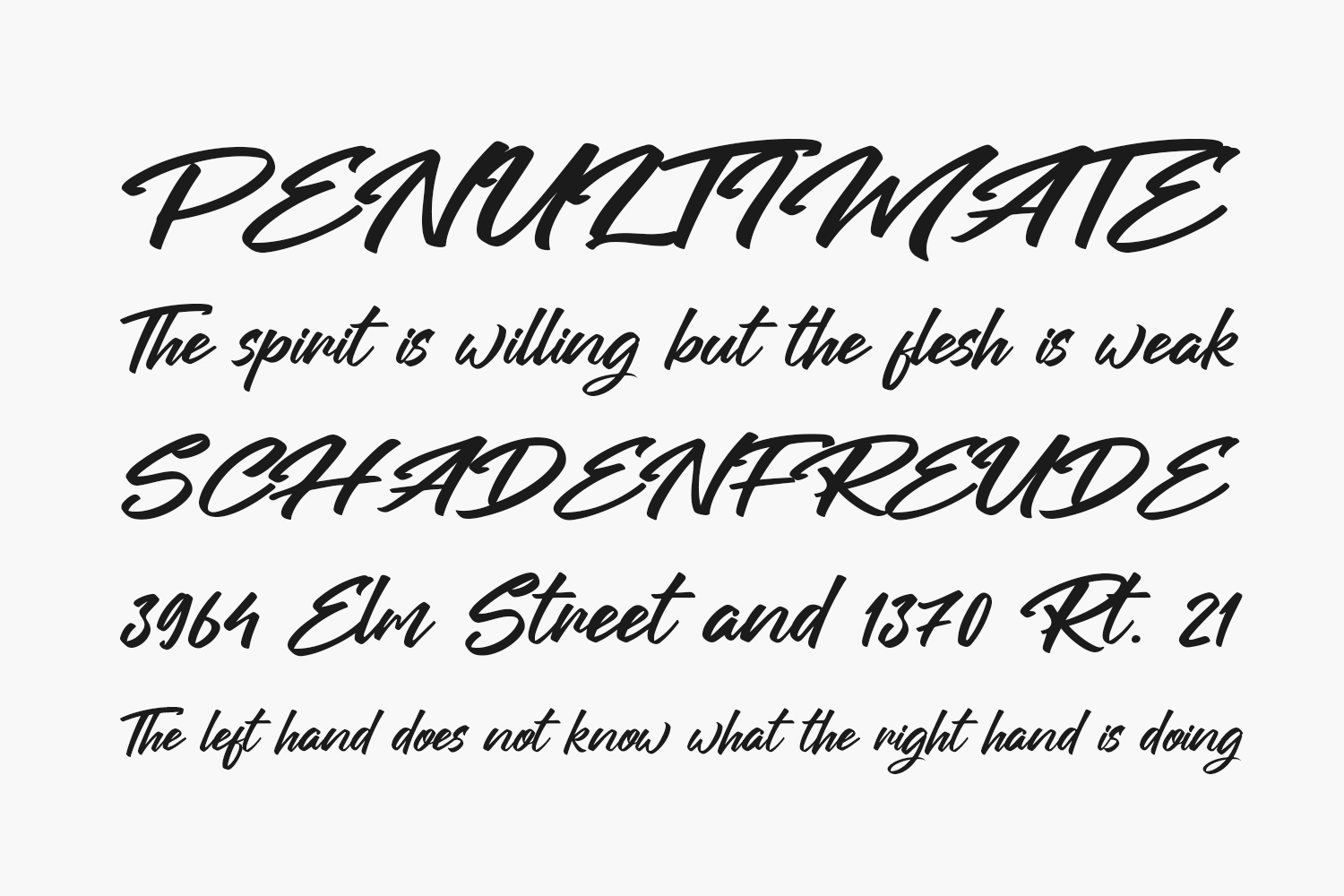
Unleash your creativity with Ruang Free Font, a contemporary cursive script font that’s designed to elevate your design projects to new heights. This versatile font is a perfect fit for a wide range of applications, including posters, logos, magazines, book covers, banners, and more! Its seamless integration into your designs will add a touch of elegance and charm.
With Ruang Free Font, the possibilities are limitless. Its adaptability allows it to effortlessly match an incredibly large set of projects, making it a go-to choice for your creative ideas. Watch in awe as this font transforms your designs, making them stand out with a captivating allure. Free Font is free for personal use only. Please purchase the full version for commercial use.